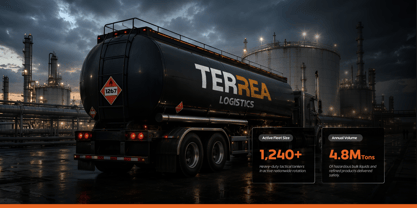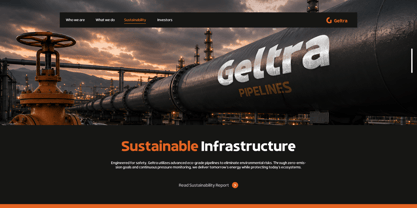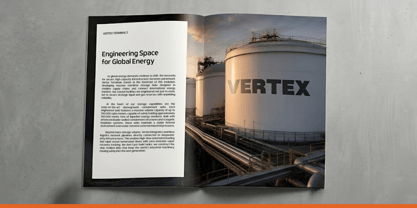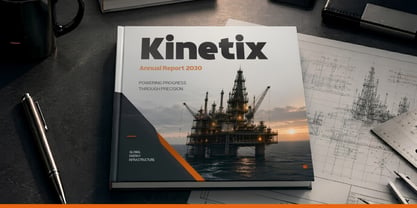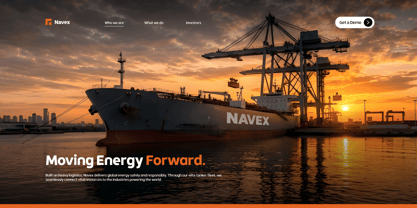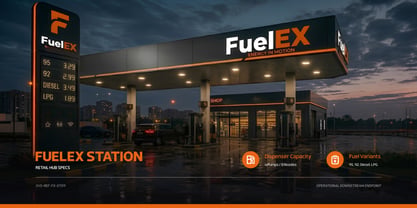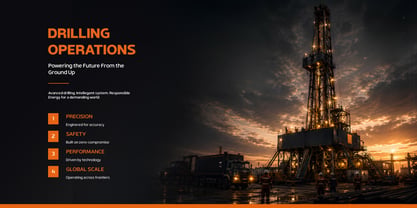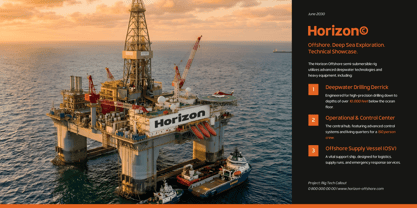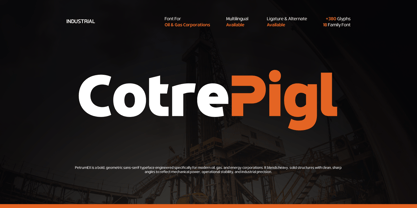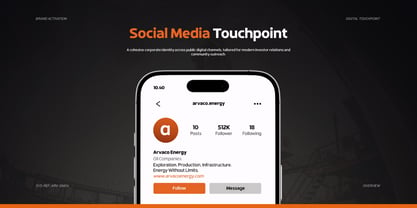
CotrePigl
by Product Type
The CotrePigl Font Family was designed by Lita Faolina and published by Product Type. CotrePigl contains 18 styles and family package options. More about this family
CotrePigl - Industrial Energy Sans is a modern sans serif typeface engineered specifically for energy, oil & gas, manufacturing, and industrial corporate branding. Its bold geometric structure and solid letterforms create a strong sense of reliability, operational stability, and technical precision - qualities that are essential in today's industrial sector. Clean shapes combined with sharp industrial-inspired details give the font a powerful yet highly readable appearance.
This typeface is perfectly suited for energy company logos, engineering websites, corporate identities, industrial presentations, annual reports, fuel branding, signage systems, and oil & gas marketing materials. Its commanding visual presence helps businesses communicate professionalism, credibility, and long-term strength across both digital and print applications.
Featuring 380+ glyphs, 18 font families, multilingual support, ligatures, and stylistic alternates, CotrePigl provides designers with the versatility needed to build distinctive and scalable brand systems. It is an excellent choice for energy corporations, refinery businesses, industrial manufacturers, engineering firms, logistics companies, and technology-driven enterprises.